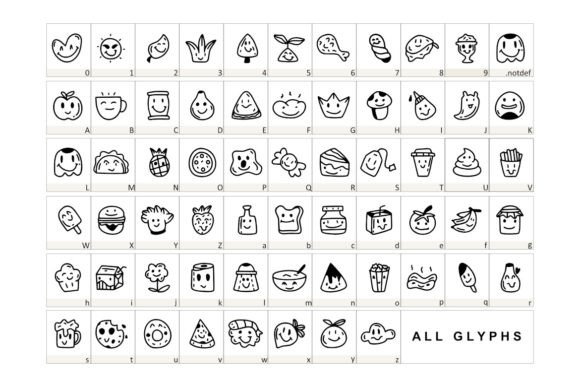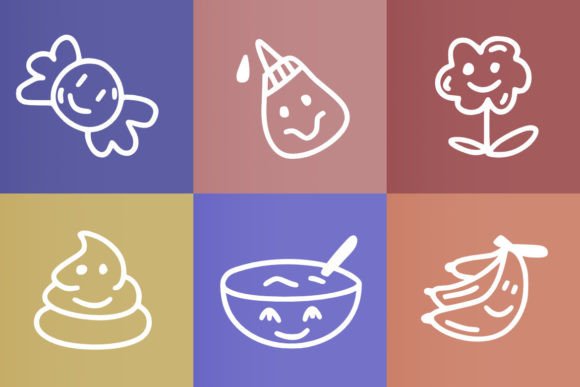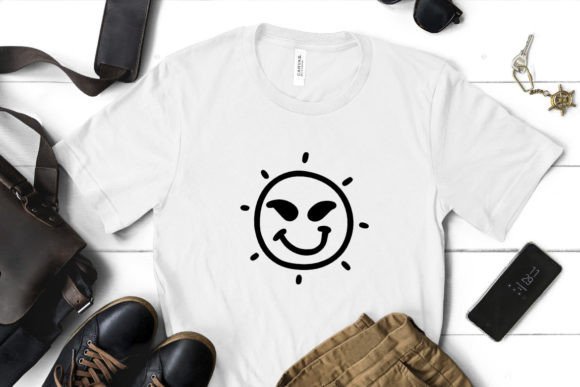
Introducing Funny Smile Font: The Ultimate Dingbats Font for Creative Projects
Are you tired of using the same old fonts for your creative projects? Look no further! Funny Smile Font is here to add a touch of whimsy and fun to your designs. This cute and useful dingbats font is perfect for a wide variety of projects, from stickers and posters to t-shirts, cards, and apparel graphics.
What is Funny Smile Font?
Funny Smile Font is a unique dingbats font that features a collection of adorable smile-themed characters. The font is designed to bring a smile to your face and add a playful touch to your designs. With its cute and quirky characters, Funny Smile Font is sure to make your projects stand out from the crowd.
Why Use Funny Smile Font?
There are many reasons why Funny Smile Font is a great choice for your creative projects. Here are just a few:
- Versatility: Funny Smile Font is perfect for a wide variety of projects, from stickers and posters to t-shirts, cards, and apparel graphics.
- Uniqueness: The font’s unique and quirky characters will add a touch of personality to your designs and help them stand out from the crowd.
- Cute and playful: The font’s adorable smile-themed characters are sure to bring a smile to your face and add a playful touch to your designs.
Project Ideas for Funny Smile Font
Here are some project ideas to get you started:
- Stickers: Use Funny Smile Font to create cute and playful stickers for your laptop, water bottle, or any other surface.
- Posters: Create eye-catching posters for a party, event, or promotion using Funny Smile Font.
- T-shirts: Design fun and quirky t-shirts using Funny Smile Font.
- Cards: Use Funny Smile Font to create adorable greeting cards for birthdays, holidays, or any other occasion.
- Apparel graphics: Add a touch of personality to your apparel graphics using Funny Smile Font.
Tips and Tricks for Using Funny Smile Font
Here are some tips and tricks to help you get the most out of Funny Smile Font:
- Experiment with different colors: Try out different colors and color combinations to add depth and interest to your designs.
- Mix and match characters: Combine different characters to create unique and interesting designs.
- Use it with other fonts: Pair Funny Smile Font with other fonts to create a unique and eye-catching design.
- Be creative: Don’t be afraid to think outside the box and try new and creative things with Funny Smile Font.
Funny Smile Font is a cute and useful dingbats font that’s perfect for a wide variety of creative projects. With its unique and quirky characters, ease of use, and versatility, it’s a great choice for designers and crafters of all levels. So why wait? Download Funny Smile Font today and start adding a touch of whimsy and fun to your designs!